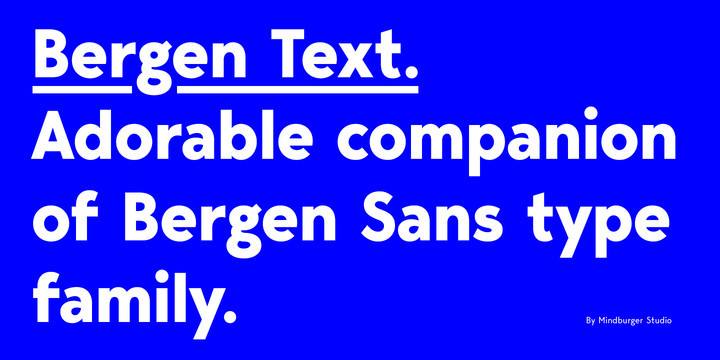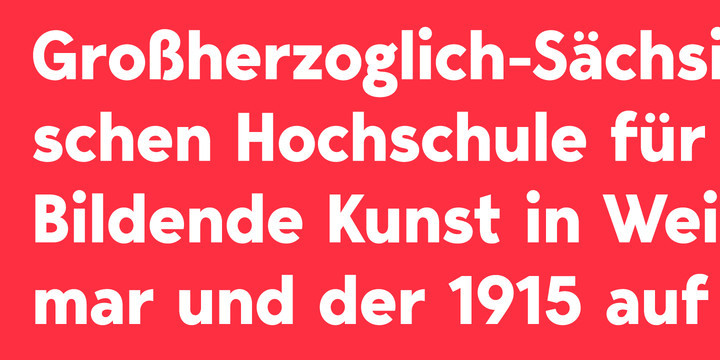
Bergen Text Font Family
Bergen Text Font FamilyBergen Text is the younger twin and a lifetime companion of Bergen Sans with perfect legibility and adorable personality. It has been carefully crafted to improve readability experience particularly on small text sizes. Bergen Text is a family of of 6 fonts. While being a small font family it has plenty of Open Type features for highly professional use and Extended Latin, Cyrillic (including Bulgarian character set) and Greek language support.